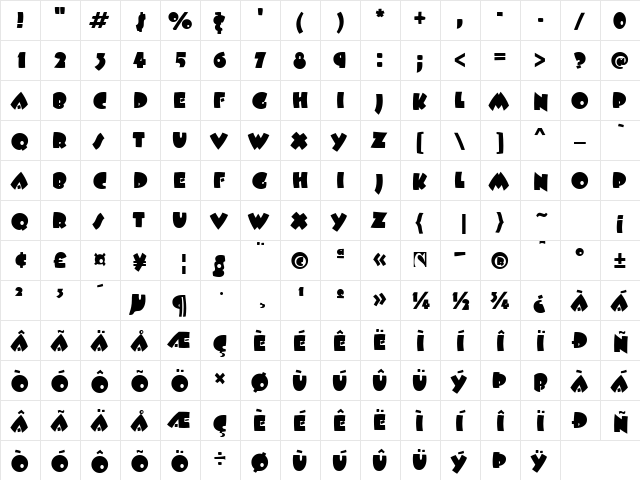
Beesnest Regular
Design Context for Beesnest Typeface
Beesnest is a composed and adaptable typeface that performs quietly and consistently across a wide range of design contexts.